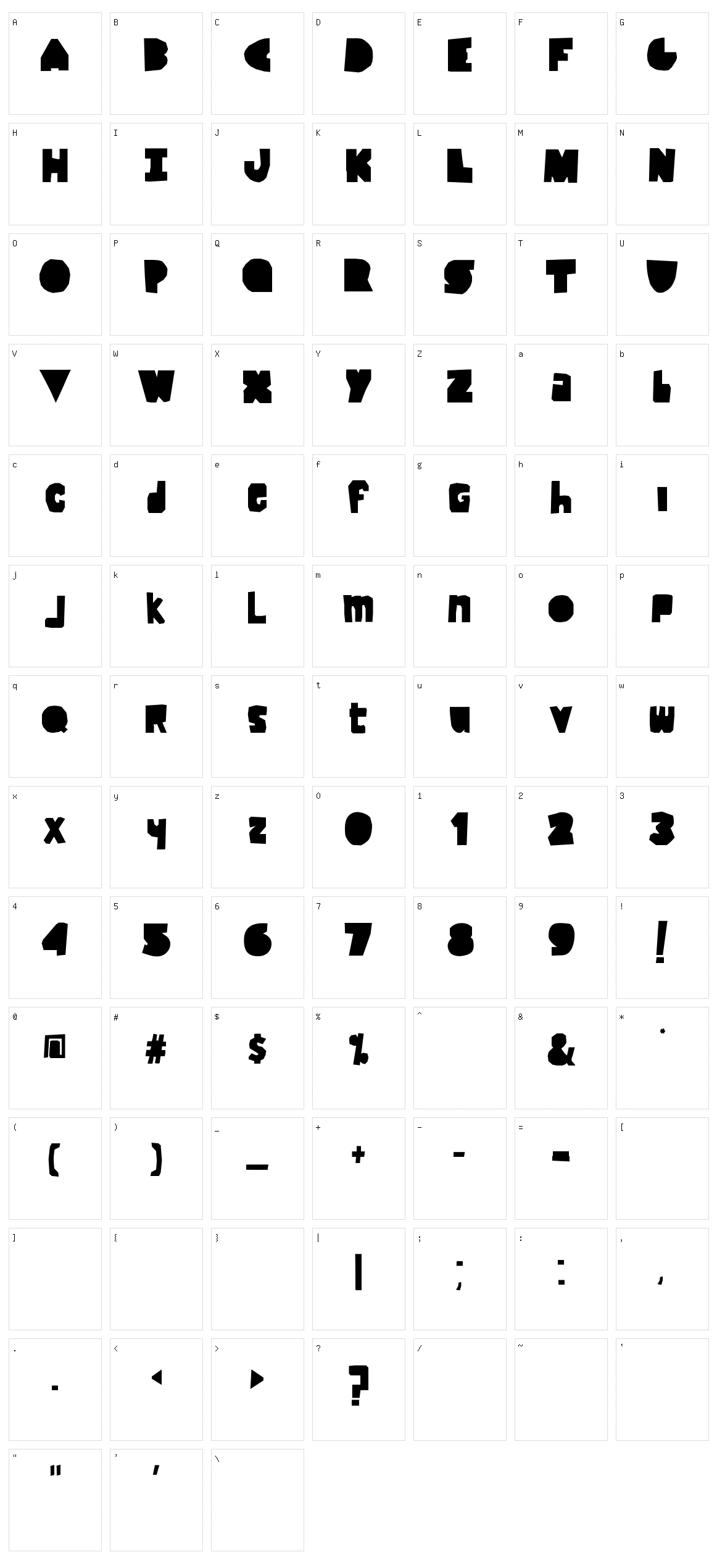
The free font Lack-of-luck is carefully designed by Omar Mogollón-Alagunna, showcasing a thoughtful balance of creativity and usability and falls under the Cartoon font style. When you download the ZIP file, it contains only 7.57 KB of font files, making it lightweight and quick to download. Please review the license details below to understand permitted usage and distribution rights. If license information is not available, we recommend using this font for personal projects only or contacting the author directly for commercial usage permissions.